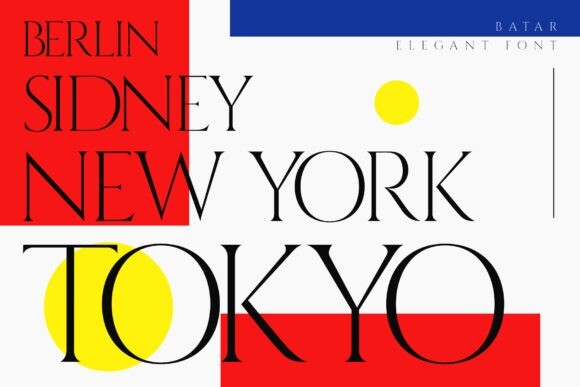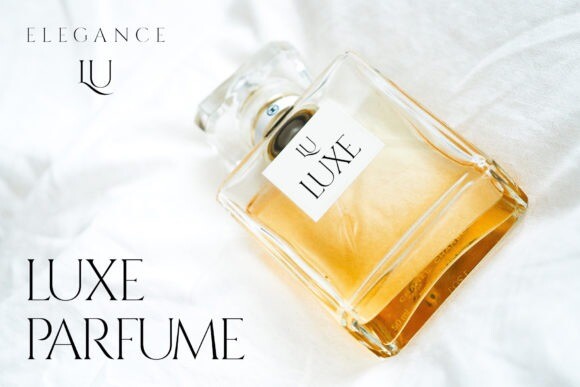
Batar Font
Batar is a simple and modern serif font perfect for branding, product packaging, invitations, quotes, T-shirts, labels, posters, logos, or any design you want to develop. Add it to your creative projects, and it will make all your work more attractive and outstanding!